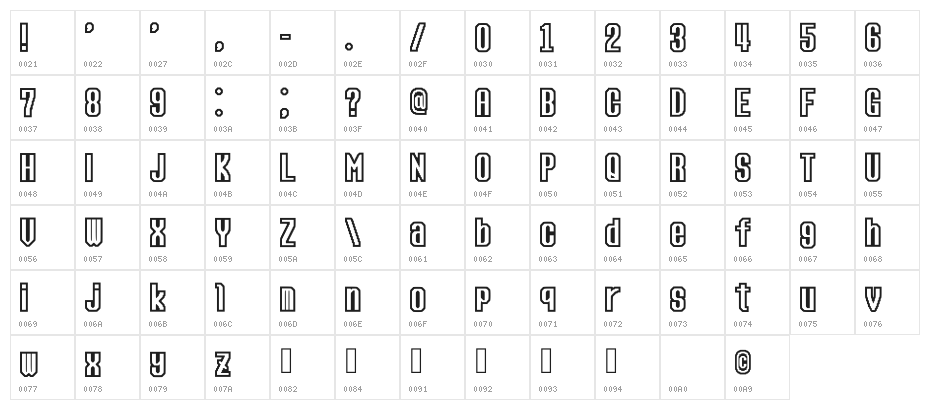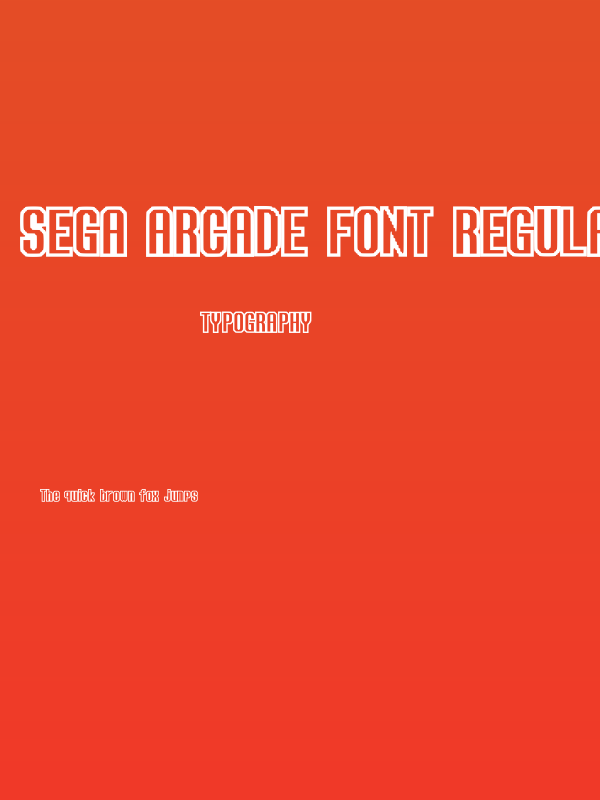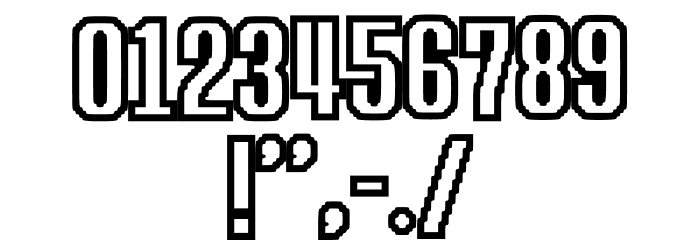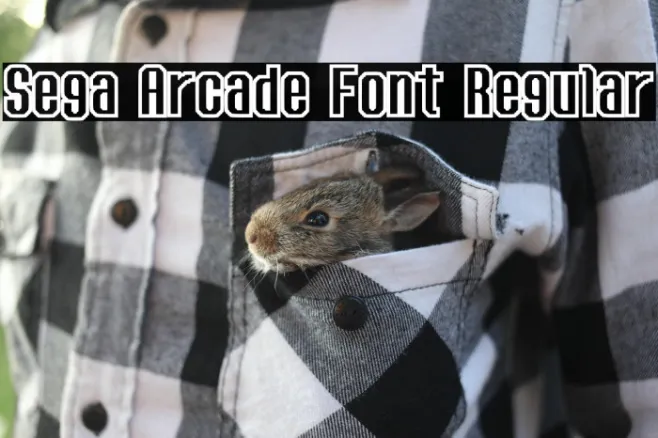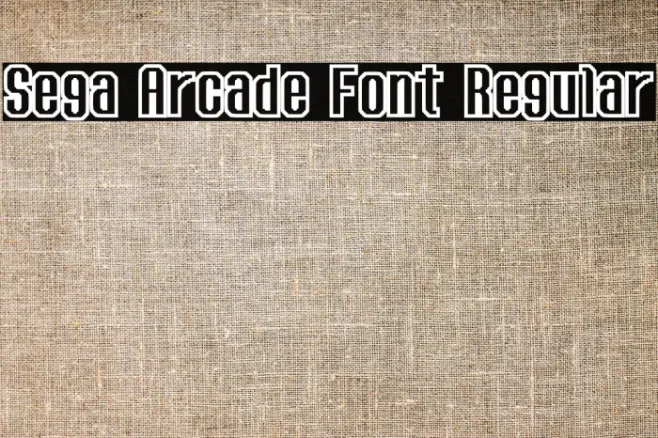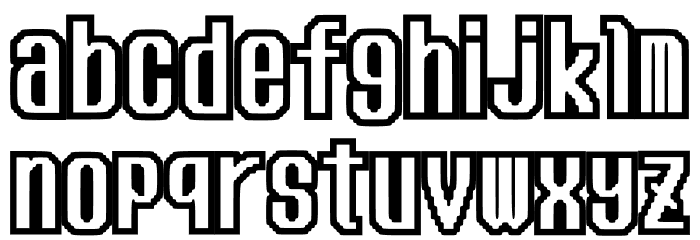
Sega Arcade Font Regular Font
Sega Arcade Font Regular Description
This font features a bold, geometric design with a distinct retro arcade aesthetic. The characters are outlined, giving them a three-dimensional appearance that is reminiscent of classic video game graphics. The uppercase and lowercase letters maintain a consistent style, with sharp angles and a blocky structure. The numbers and special characters follow the same design principles, ensuring uniformity across all glyphs. This font captures the essence of vintage gaming, making it ideal for projects that aim to evoke nostalgia or a playful, energetic vibe.
| Overall Style | Retro, Decorative |
| Proposed Projects | Ideal for video game titles, retro-themed posters, merchandise, and branding that seeks to capture a nostalgic gaming feel. |